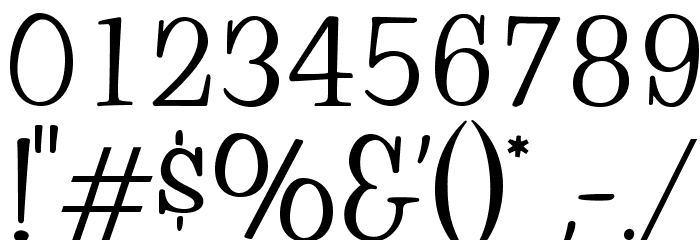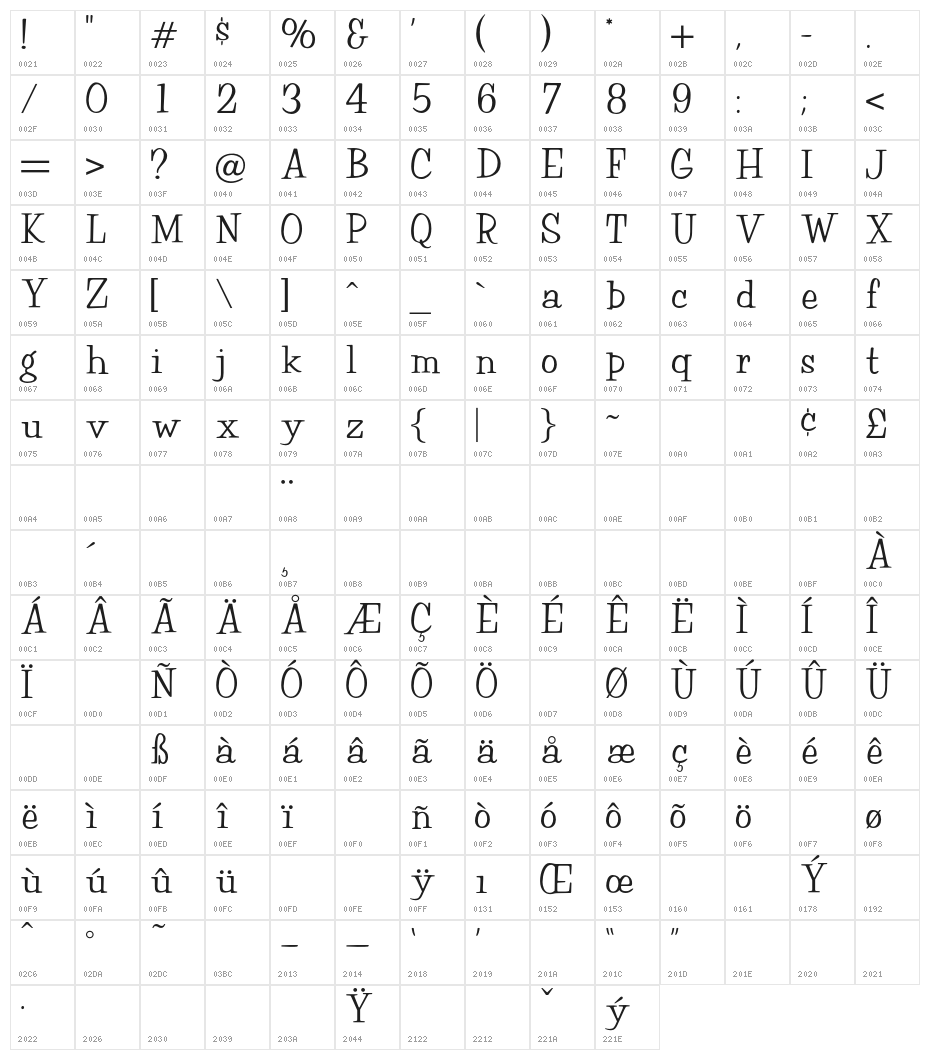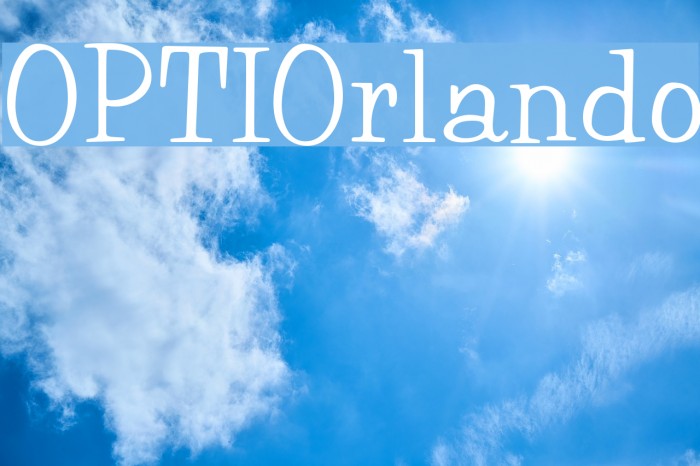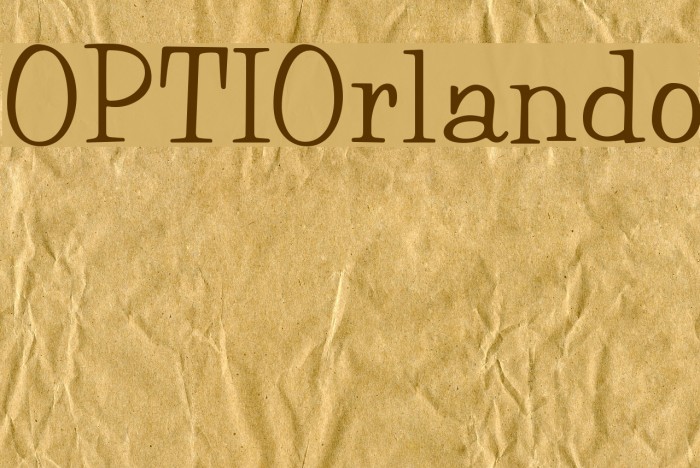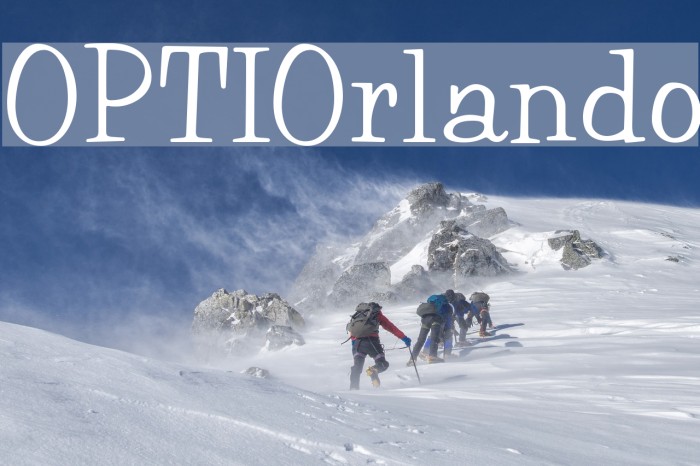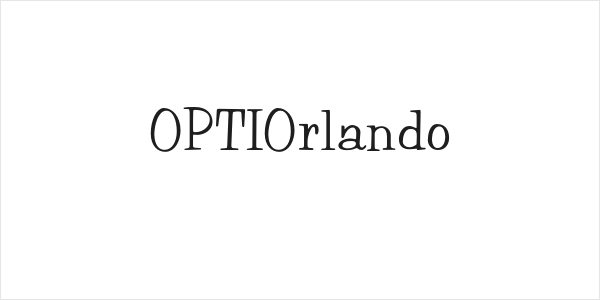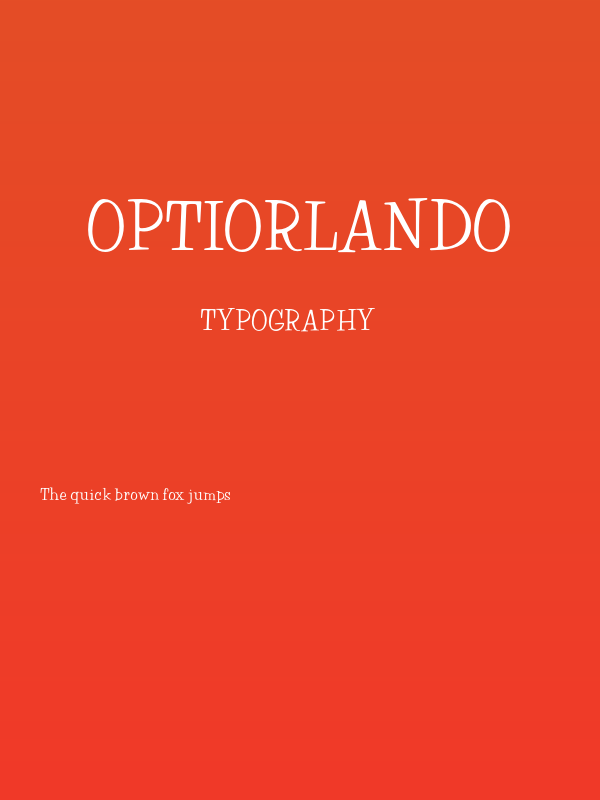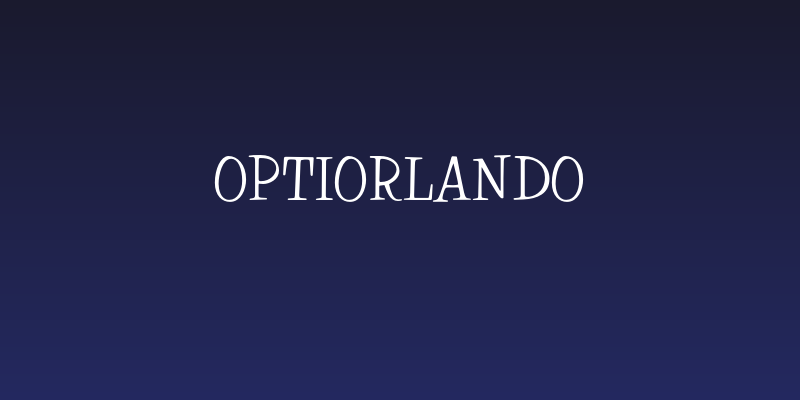
OPTIOrlando Font
OPTIOrlando Description
This font features a playful and whimsical design, characterized by its slightly irregular and hand-drawn appearance. The uppercase letters exhibit a unique blend of traditional serif elements with a modern twist, giving them a distinctive personality. The lowercase letters maintain a consistent style, with rounded edges and a casual flair. Numbers are bold and clear, ensuring readability while maintaining the font's quirky charm. Special characters are well-integrated, adding to the font's versatility. Overall, this font combines a sense of fun with readability, making it suitable for a variety of creative applications.
| Overall Style | Whimsical |
| Proposed Projects | Ideal for children's books, playful branding, creative posters, and invitations. |